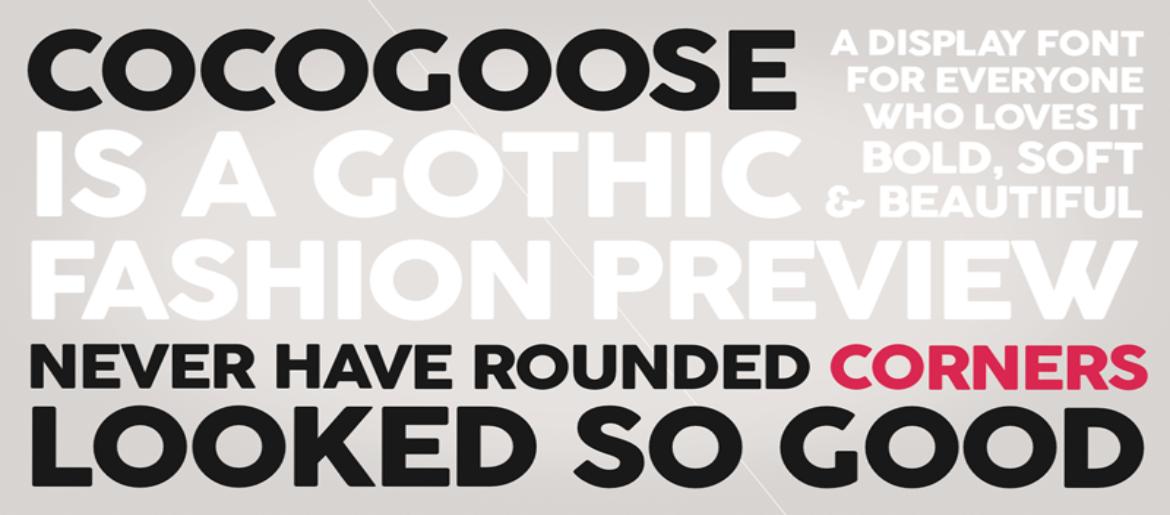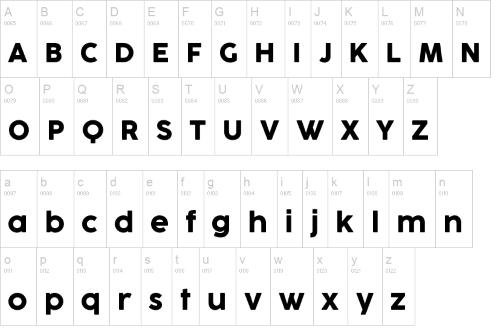
Cocogoose Font
Cocogoose font
Cocogoose Font is a bold, modern geometric sans-serif known for its rounded shapes and strong visual presence. Its clean lines, wide letterforms, and contemporary style make it perfect for logos, headlines, packaging, and stylish branding. Cocogoose brings a sleek, confident, and polished look to any design project.
➤ Font Name: Cocogoose
➤ Designer:  Zetafonts
➤ Style: Sans serif